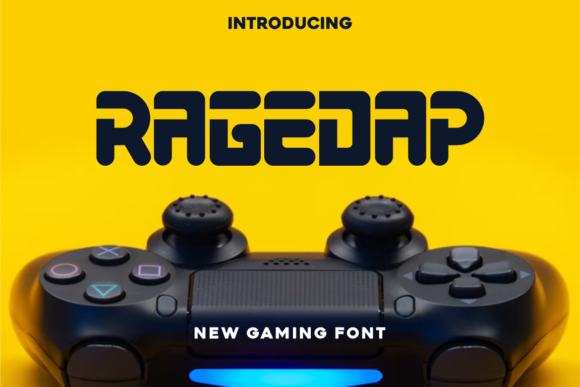
Prepare for greatness with Ragedap, the display font that will transform your designs into captivating masterpieces. Its smooth curves and captivating style make it the ultimate choice for leaving a lasting impression.
Immerse yourself in the world of gaming and unleash your creativity with Ragedap, the font that captures the essence of adventure and excitement. Whether you're crafting logos, designing posters, or creating eye-catching headlines, Ragedap's striking presence will leave viewers in awe.
Join the ranks of satisfied designers who have found their perfect match in Ragedap. Explore endless possibilities and let your imagination run wild as you create stunning visuals that demand attention.
Add Ragedap to your design toolkit and unlock a world of endless possibilities. Experience the joy of crafting designs that resonate with your audience, leaving a lasting impact that sets you apart from the ordinary.
Adept at capturing attention, Ragedap is the perfect choice for creating logos that exude professionalism and sophistication. Its ability to convey messages with clarity and impact makes it the ideal font for marketing materials, ensuring your brand's message is heard loud and clear.
With Ragedap, you can effortlessly create stunning visuals that captivate and inspire. Its versatility knows no bounds, effortlessly adapting to a wide range of projects, from social media posts to website designs. Unleash your creativity and let Ragedap elevate your designs to new heights.